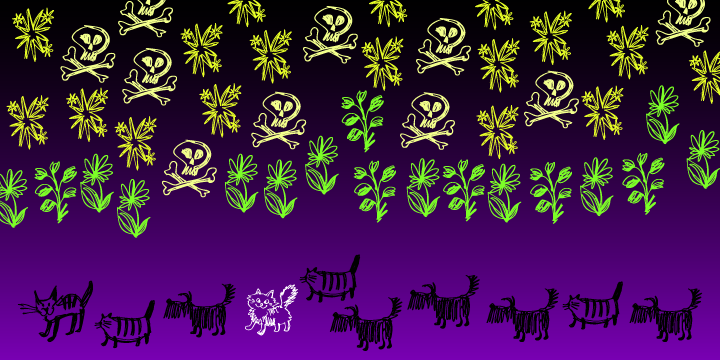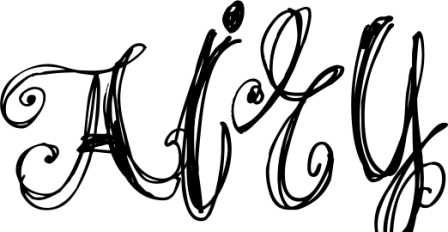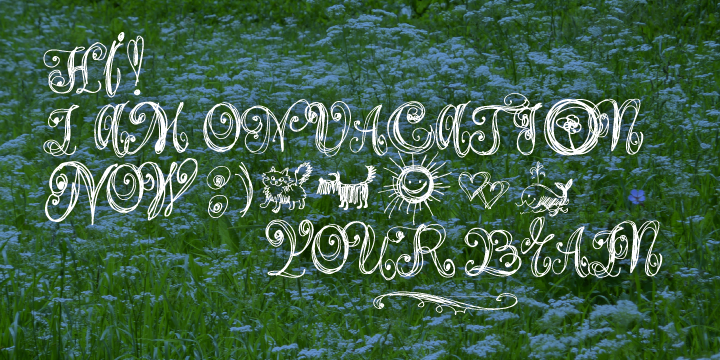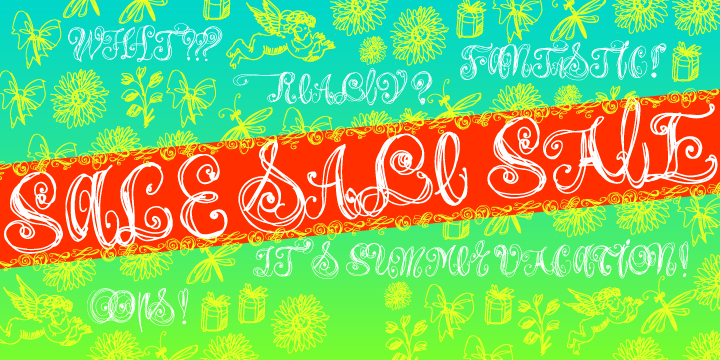
Designed by Alexandra Korolkova, Airy is a dingbat, grunge and hand display font family. This typeface has two styles and was published by ParaType.
Airy is in fact a very light-minded summer font without any serious design concept. It is a collection of hand-drawn letters that with the help of OpenType features allow you to get a lace texture with mutable structure. Together with the font you also get a bonus—a set of naive pictures that you normally draw on the margins of your sketchbook. Designer - Alexandra Korolkova. Released by ParaType in 2010.
Styles | Grunge, Hand Display, Dingbat |
Designer | Alexandra Korolkova |